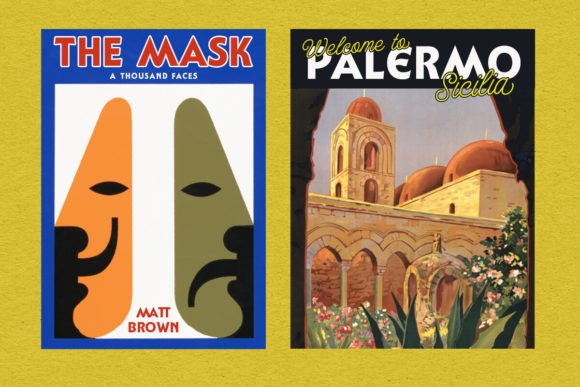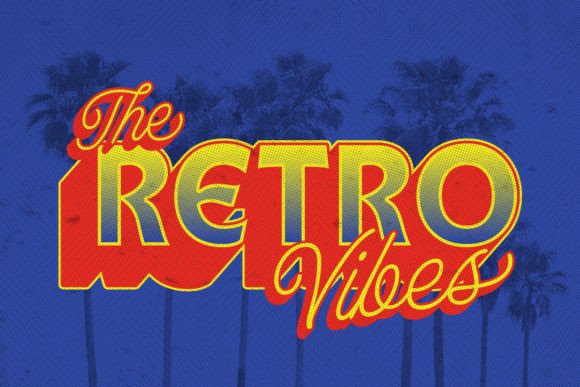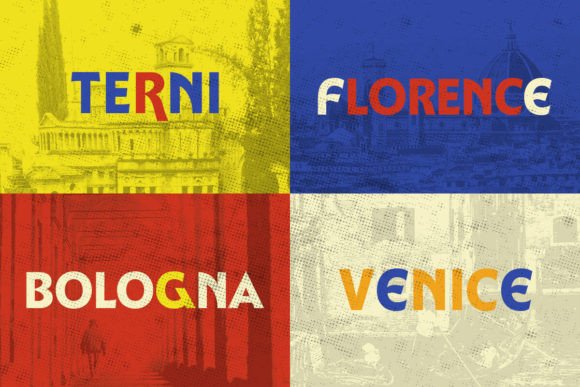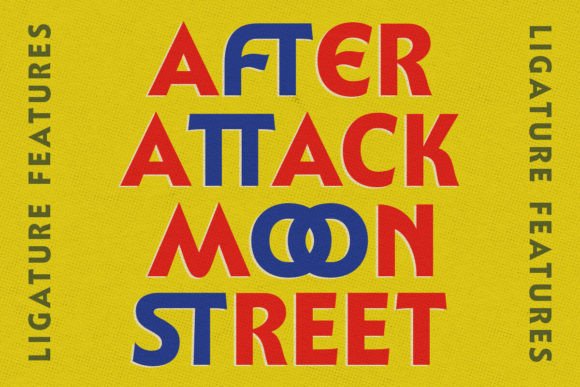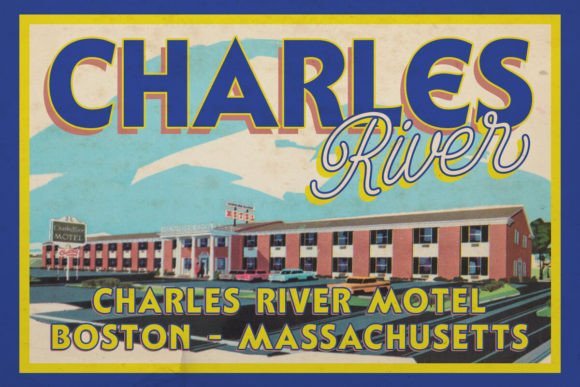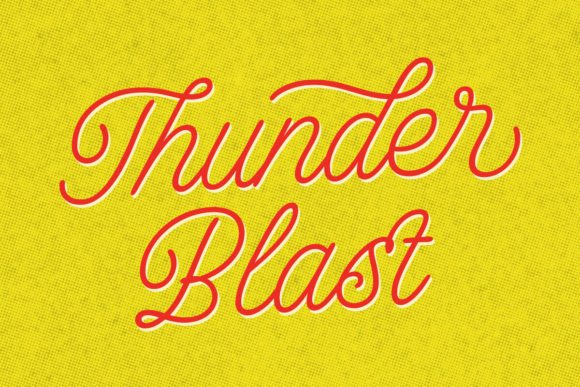
Relive the Golden Era of Art with Dencors Font
I’ll never forget the design project that led me to discover Dencors Font. I was working on a vintage-themed branding campaign for a fashion client, and I was struggling to find the perfect font that captured the essence of the 60s and 70s. That’s when I stumbled upon Dencors, a font duo that instantly transported me to a bygone era of art and design.
A Timeless Charm
Dencors Font is a masterful blend of a classy script and a classic display sans, inspired by the iconic signages of the 1960s and 1970s. This font duo is perfect for designers, crafters, and creative hobbyists looking to add a touch of vintage glamour to their projects. Whether you’re designing a logo, invitation, label, or packaging, Dencors Font is sure to impress.
- ✅ The vintage feel is spot on, with a perfect balance of elegance and playfulness.
- ✅ The font duo includes a range of OpenType features, glyphs, and stylistic alternates, making it incredibly versatile.
- ✅ The script font has a beautiful, handwritten feel that’s perfect for adding a personal touch to designs.
- ✅ The display sans font is bold and eye-catching, making it ideal for headlines and titles.
While Dencors Font is an excellent choice for many design projects, there are a few things to keep in mind:
- 🤔 The font may not be suitable for very small text sizes, as some details may get lost.
- ⚠️ The script font can be a bit tricky to read if not used at the right size or in the right context.
The Designer Inspiration
Dencors Font was inspired by the iconic signages of the 1960s and 1970s, a time when art and design were all about experimentation and creativity. The font’s designer, a fictional character named Alex, was fascinated by the era’s bold and playful aesthetic and sought to capture its essence in a modern font duo. Alex spent countless hours researching and experimenting with different font styles, eventually creating Dencors Font, a true masterpiece of typography.
Q: What is Dencors Font?
A: Dencors Font is a font duo consisting of a classy script and a classic display sans, inspired by the iconic signages of the 1960s and 1970s.
Q: What is Dencors Font best used for?
A: Dencors Font is perfect for logo design, invitations, labels, packaging, fashion, makeup, stationery, novels, and any type of advertising purpose.
Q: Is Dencors Font easy to read?
A: Yes, Dencors Font is designed to be easy to read, but the script font may require some adjustments to size and context for optimal readability.